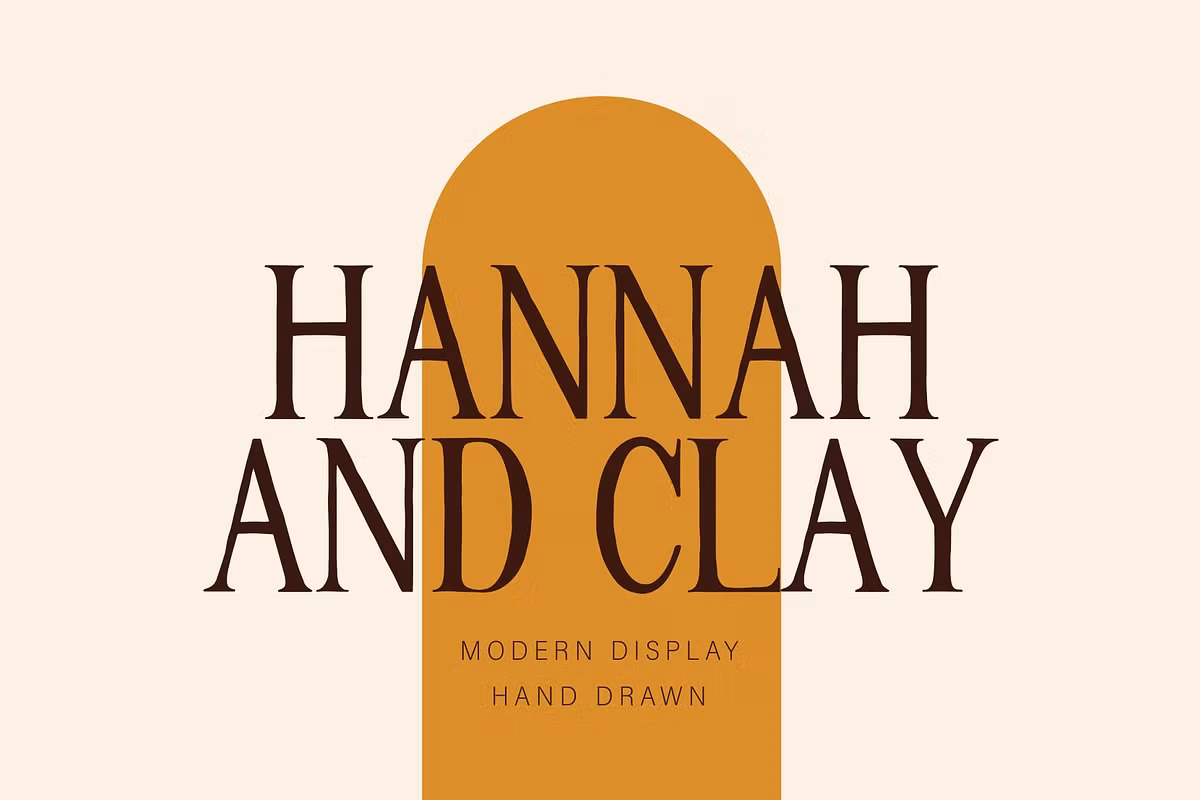
HANNAH & CLAY | Handwritten Serif Font Free Download is a beautifully balanced typeface that blends the structure of a serif with the charm of hand-drawn lettering. Perfect for wedding invitations, boutique branding, social media graphics, and elegant stationery, this font adds a soft, artistic touch to your designs.
With its delicate lines and subtle irregularities, HANNAH & CLAY | Handwritten Serif Font Free Download brings warmth and personality to your typography. Whether you're designing for a romantic event or a stylish lifestyle brand, this font offers both character and sophistication. Try it in your next project to feel its organic elegance—then upgrade to a commercial license when you're ready to make it official.